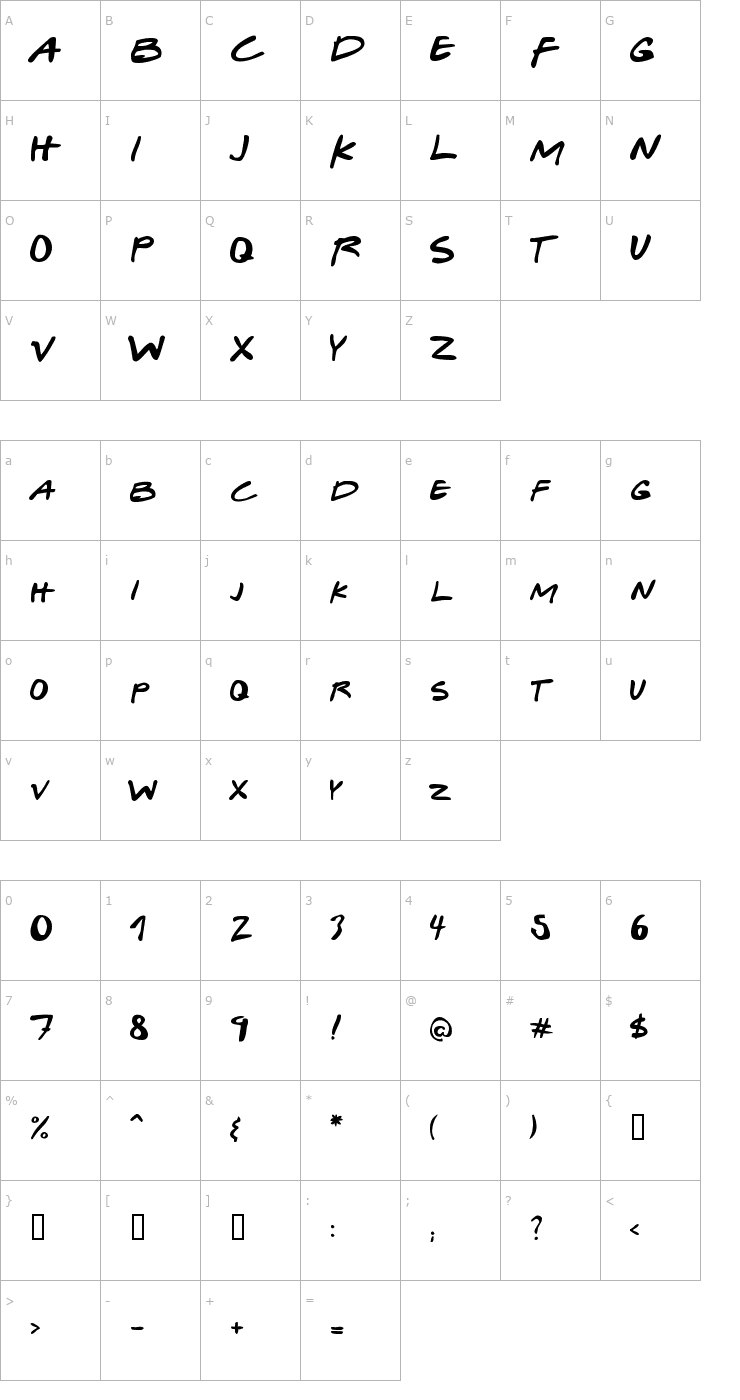
Gabriel Weiss Friends Font - Gabriel weiss’ friends font by gabriel weiss is a professional handwritten font which was created by gabriel weiss and it is free for download and. This font is free for personal use. For commercial use, please contact me with some information about the project.